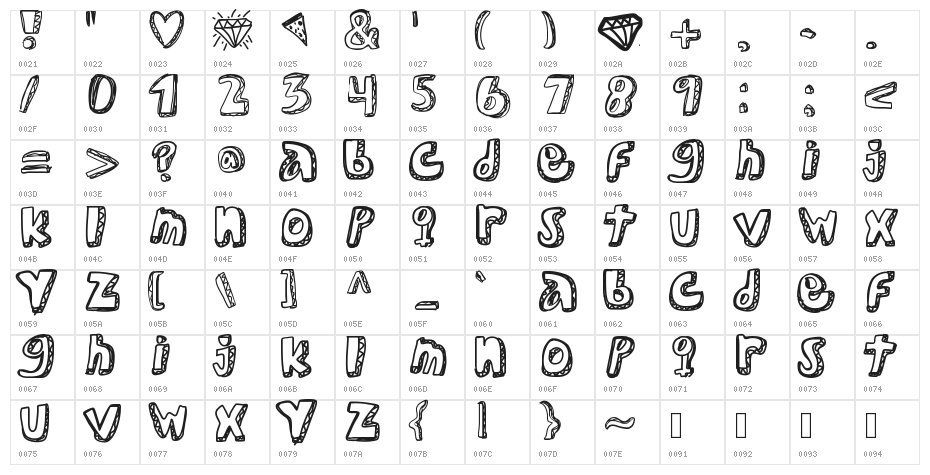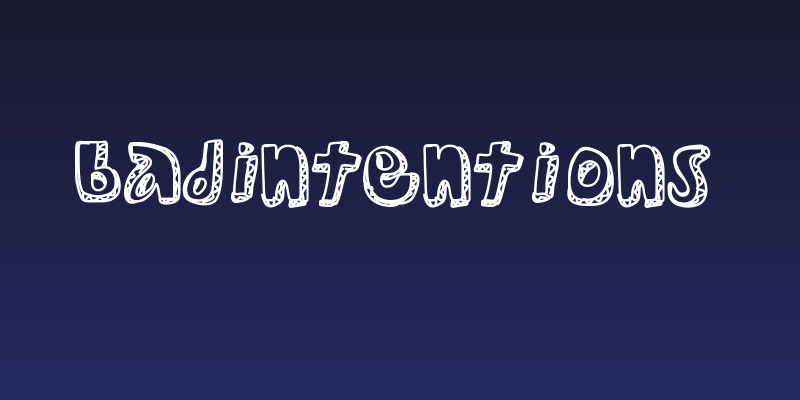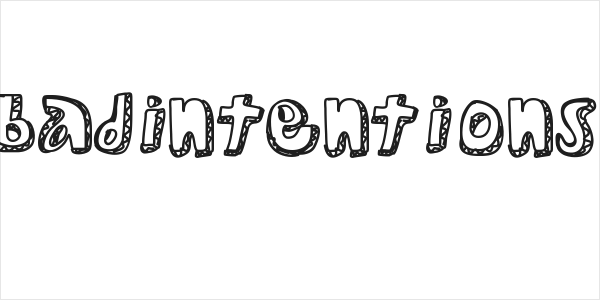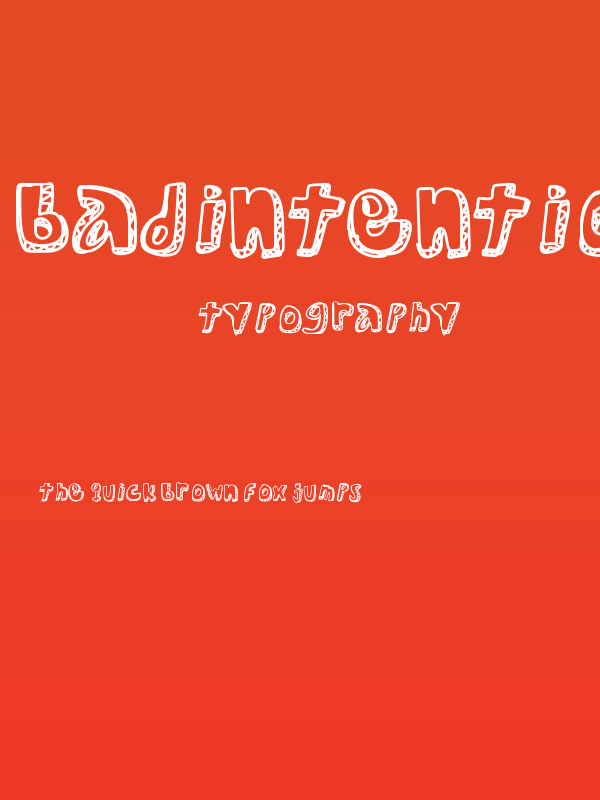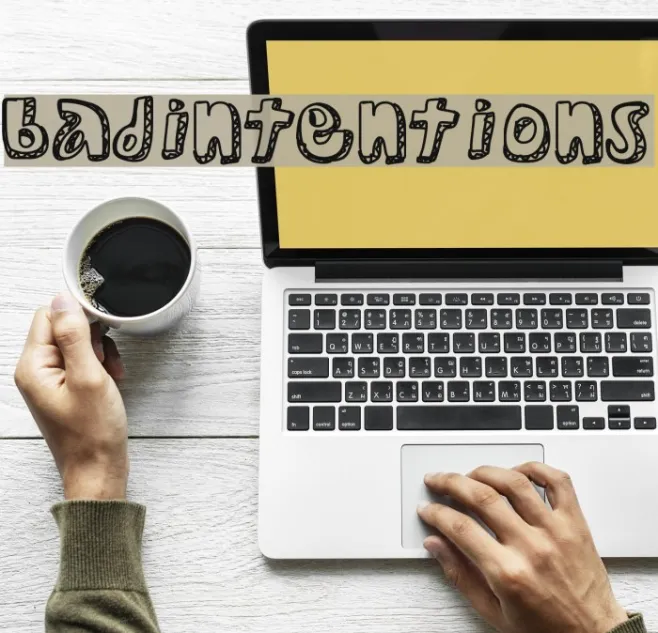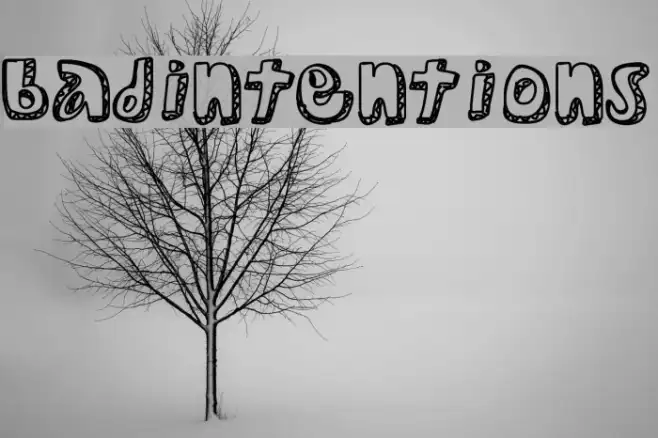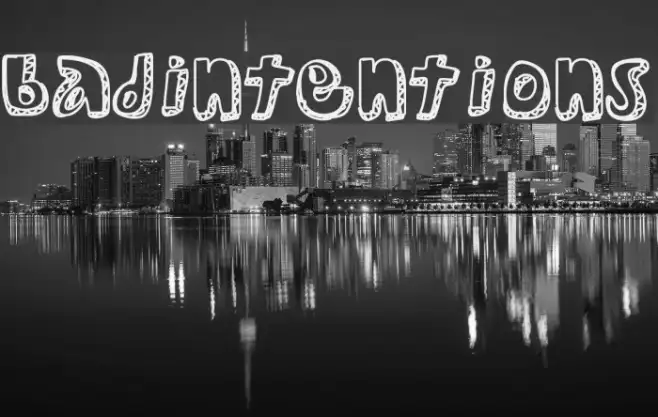
BadIntentions Font
BadIntentions Description
This playful and whimsical font features a hand-drawn style with a bold, cartoonish appearance. Each character is outlined with a thick, uneven stroke, giving it a lively and dynamic feel. The letters are filled with various patterns, such as stripes and dots, adding to its quirky and fun aesthetic. The font includes both uppercase and lowercase letters, numbers, and a selection of special characters. Its irregular shapes and decorative elements make it stand out, perfect for creative and informal designs.
| Overall Style | Whimsical, Playful |
| Proposed Projects | Ideal for children's books, comic strips, playful branding, party invitations, and creative posters. |